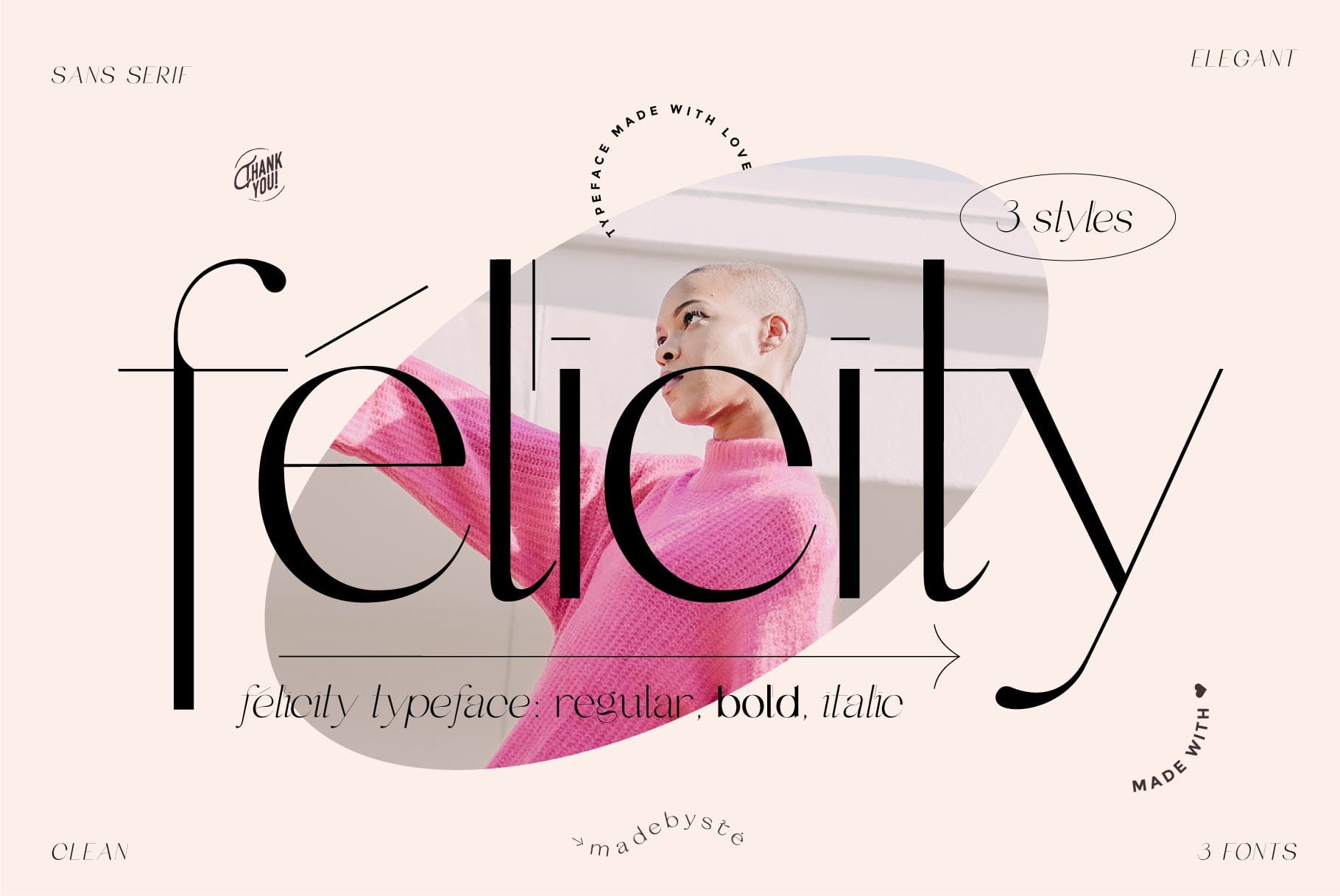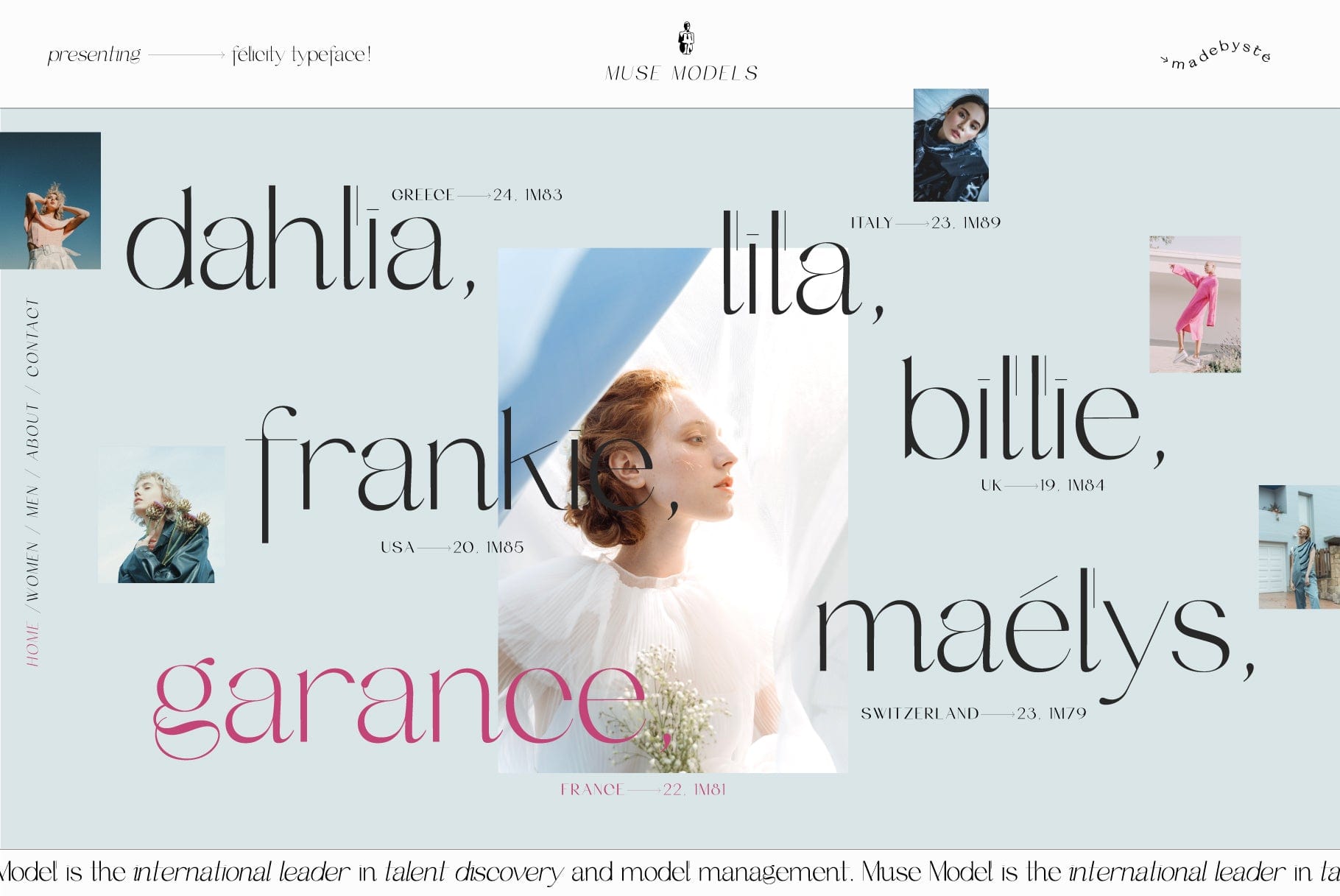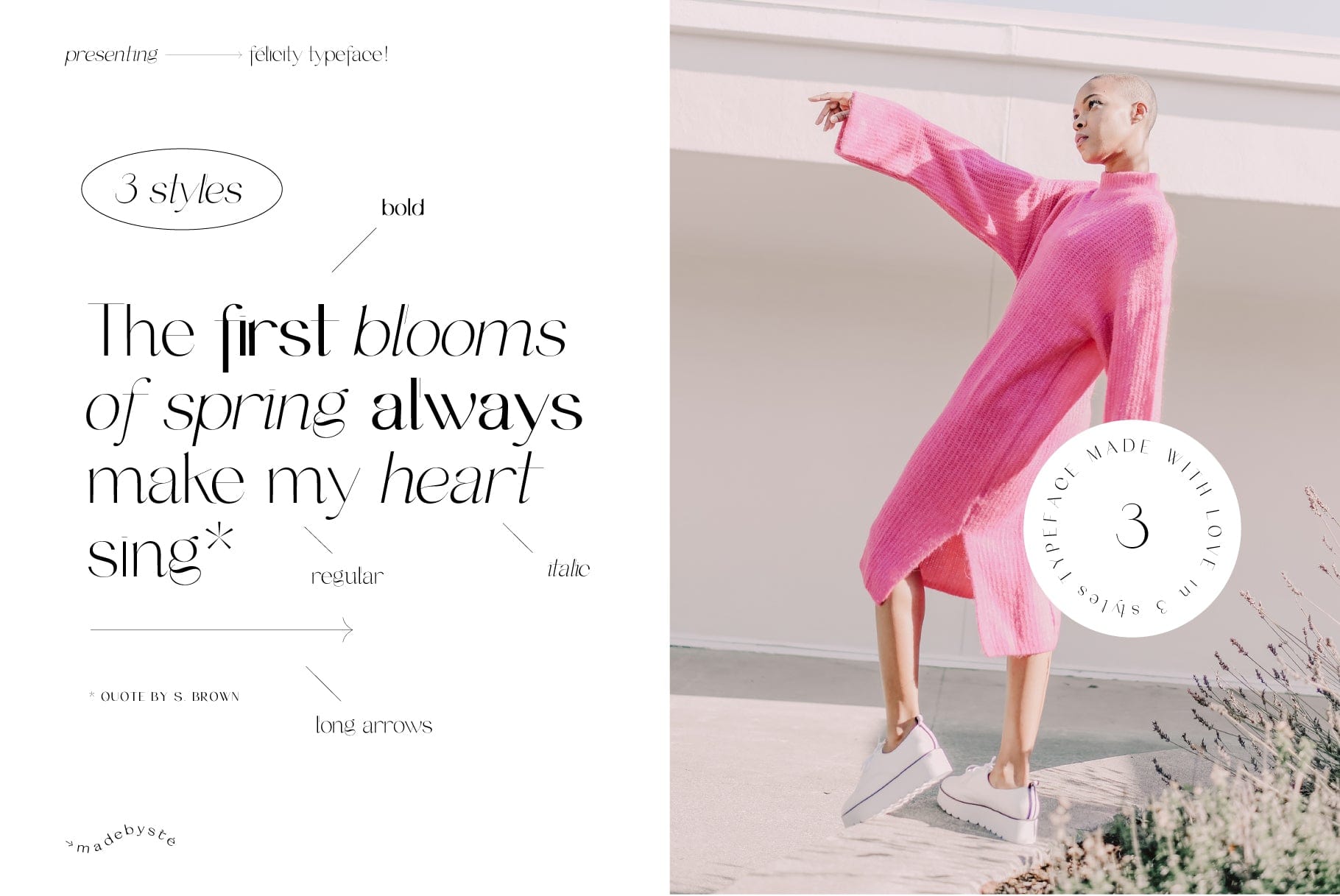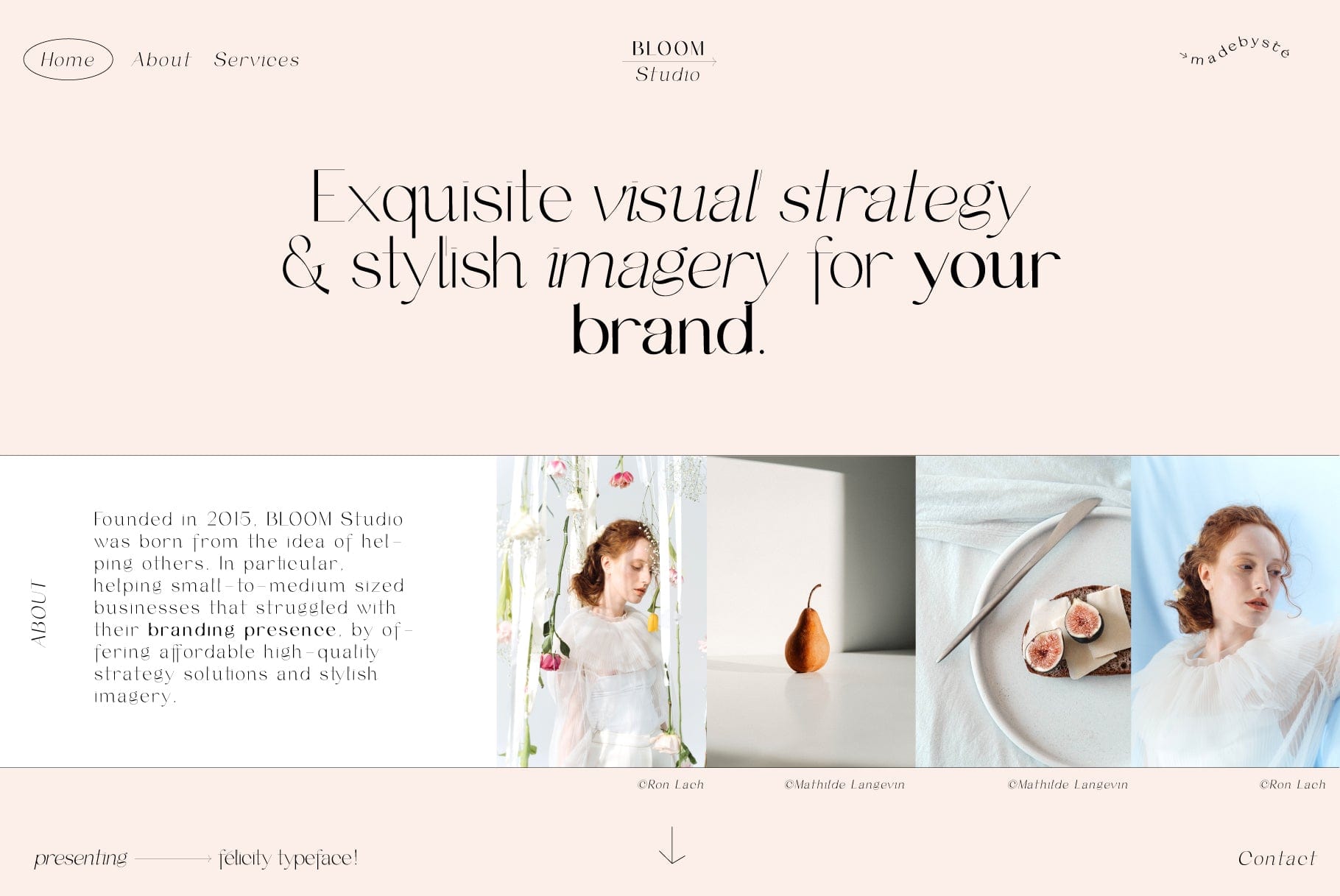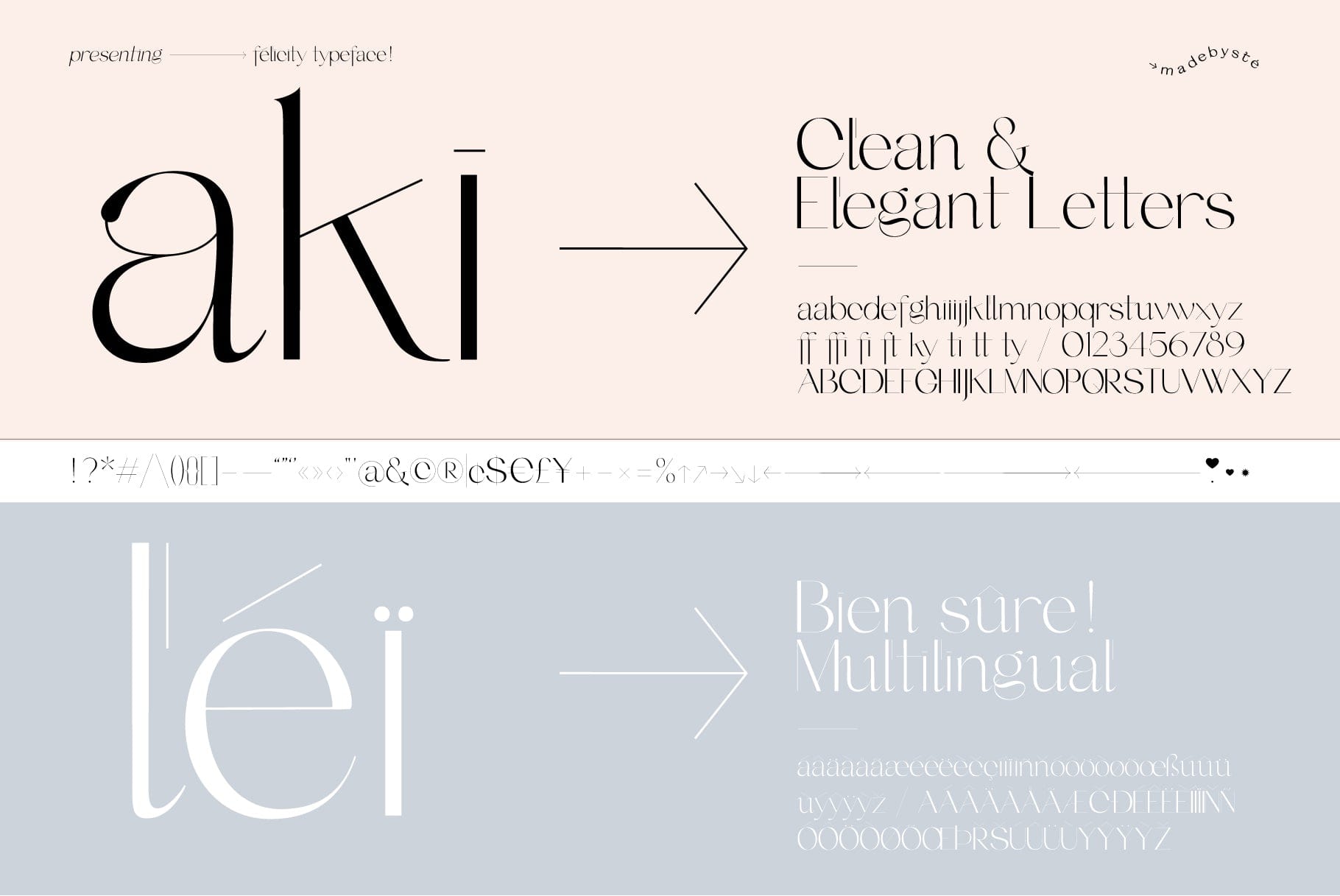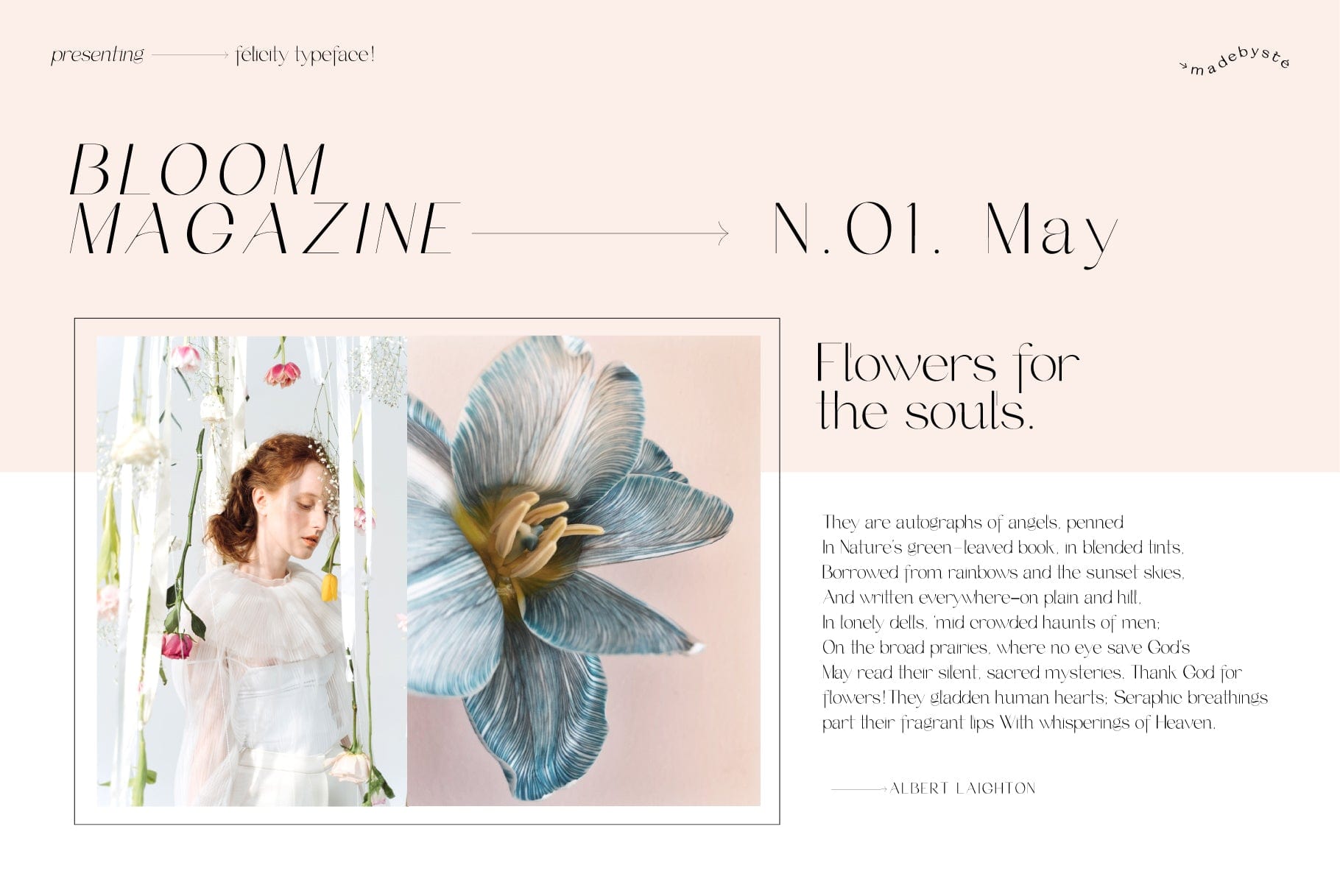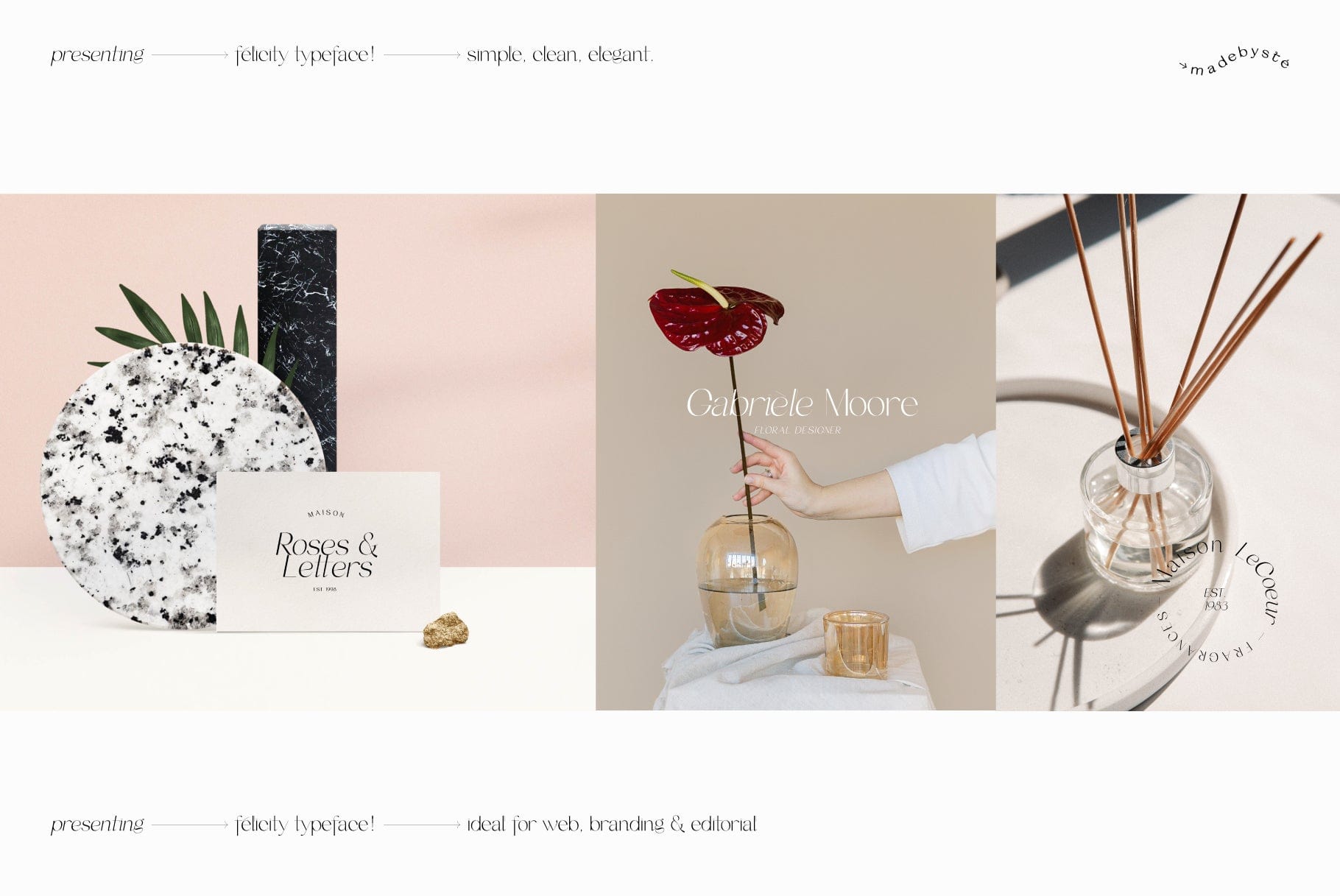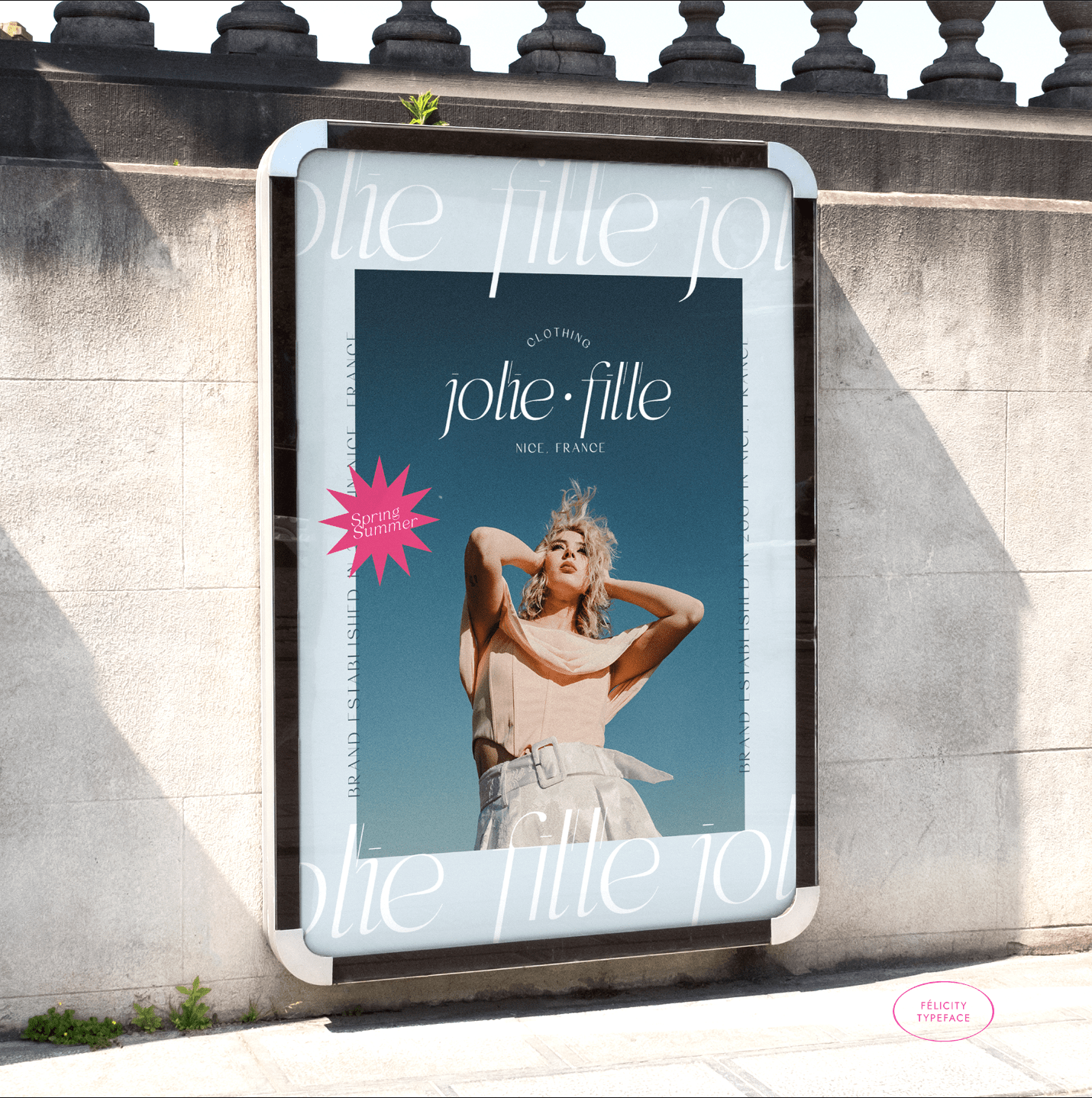
Félicity Typeface
Félicity typeface is a timeless modern chic sans serif. It has beautiful contrasts and that's make it very pure. Give your text a bit of elegance and sweetness. This font is ideal for branding, editorial design and web design. Mix the 3 styles and have fun!
Includes: Félicity Regular, Félicity Italic, Félicity Bold